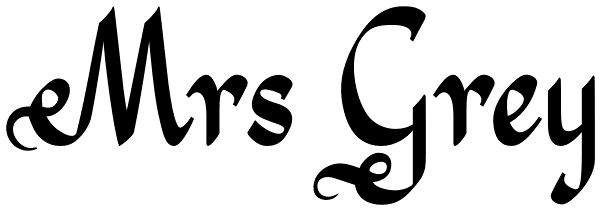
Mrs Grey
Stylish and elegant typeface written with a wide, broad-edge nib. Over 40 standard ligatures and over 150 alternate and swash characters. Use OpenType features (Swash and Stylistic sets) to change the endings of lowercase letters or select most...
Mrs Grey
Mrs Grey Pattern